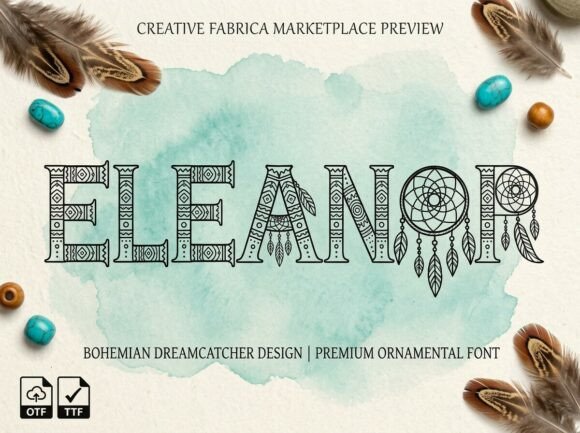
Eleanor Font: A Stunning Decorative Display Font for Creative Minds
Are you tired of using the same old fonts for your creative projects? Look no further than the Eleanor Font, a stunning decorative display font designed to make a statement. With its unique artistic elements and strong visual personality, this font is perfect for creators who want to break away from the ordinary and add a touch of elegance to their work.
What Makes Eleanor Font So Special?
The Eleanor Font is a versatile decorative font that is perfect for a variety of creative projects, including bold headlines, artistic logos, and creative packaging. Its strong visual personality and unique artistic elements make it an excellent choice for designers and crafters who want to add a touch of sophistication to their work.
One of the standout features of the Eleanor Font is its ability to add a professional and polished finish to any project. Whether you’re working on a logo, headline, or packaging design, this font is sure to make your work stand out from the crowd.
This is an important consideration for designers and crafters, as it means that the Eleanor Font is best suited for projects where a bold, eye-catching font is needed. However, if you’re looking for a font that includes both uppercase and lowercase letters, this may not be the best choice for you.
The Eleanor Font is perfect for designers and crafters who want to add a touch of elegance and sophistication to their work. Whether you’re working on a logo, headline, or packaging design, this font is sure to make your work stand out from the crowd.
Some examples of projects where the Eleanor Font would be a great choice include:
- Headlines and titles for magazines, newspapers, and online publications
- Packaging design for products
- Artistic and creative projects
Tips for Using the Eleanor Font
Here are a few tips for getting the most out of the Eleanor Font:
- Use it sparingly: The Eleanor Font is a bold and eye-catching font, so it’s best to use it sparingly to avoid overwhelming your design.
- Pair it with a simple font: To create visual interest, try pairing the Eleanor Font with a simple font for body text.
- Experiment with different colors: The Eleanor Font looks great in a variety of colors, so don’t be afraid to experiment and find the perfect hue for your design.
The Eleanor Font is a stunning decorative display font that is perfect for designers and crafters who want to add a touch of elegance and sophistication to their work. With its unique artistic elements and strong visual personality, this font is sure to make your work stand out from the crowd.